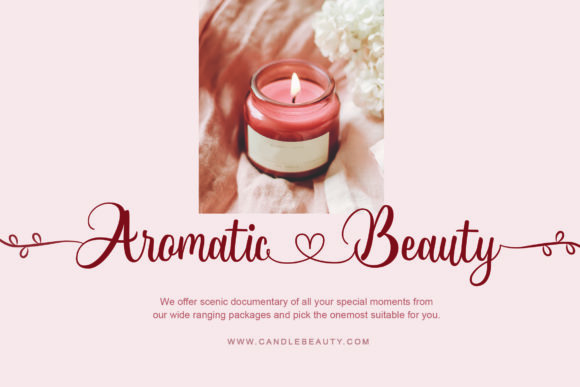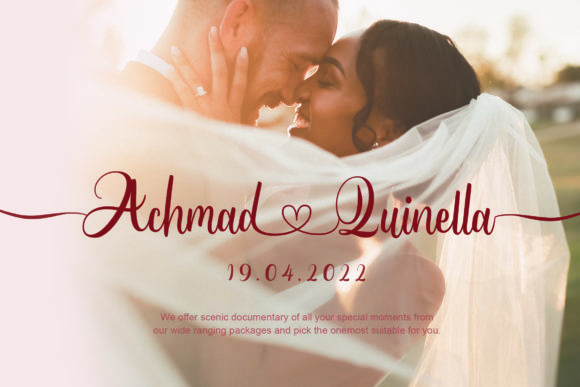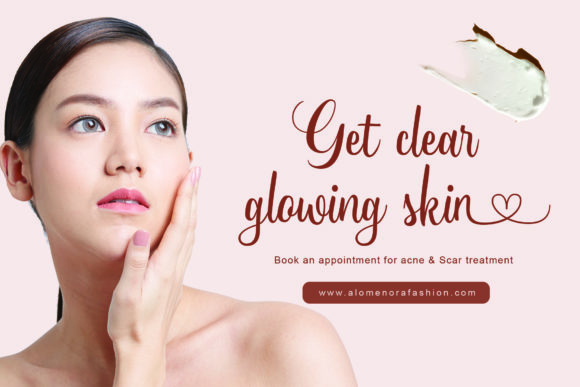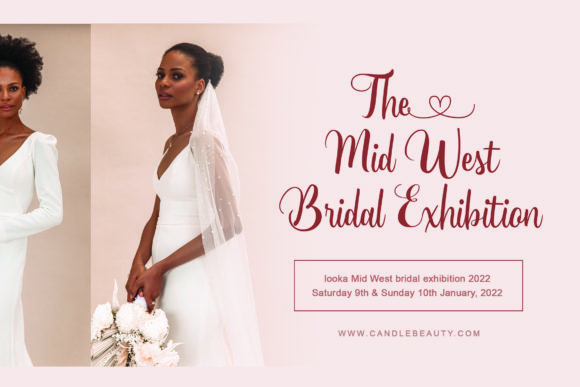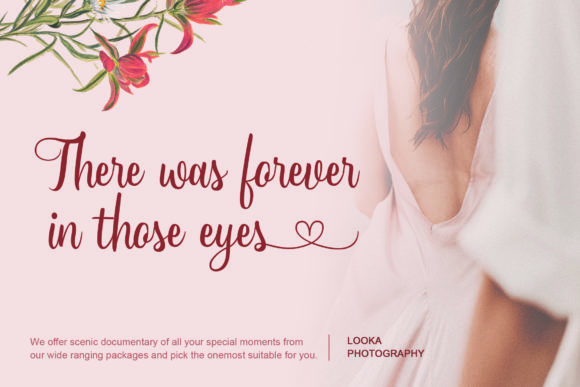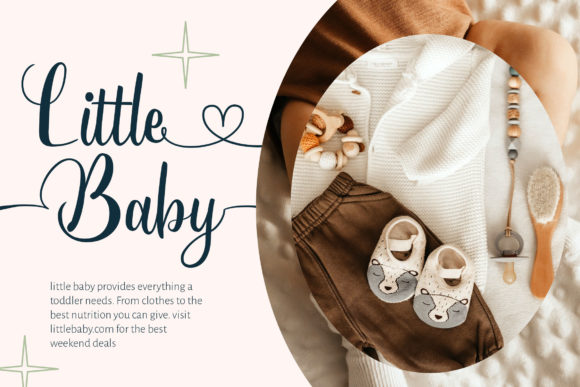
Discover the Charming Elegance of Butter Crush Font
Are you a designer or crafter looking for a font that exudes charm and elegance? Look no further than the Butter Crush Font. This beautiful font is perfect for adding a customized touch to various designs, and its PUA encoding makes it easy to access all the glyphs and swashes you need.
The Charm of Butter Crush Font
Butter Crush Font is a stunning typeface that feels equally charming and elegant. Its unique design makes it perfect for a wide range of projects, from wedding invitations and party decorations to branding and packaging. Whether you’re creating a romantic getaway or a whimsical craft project, this font is sure to impress.
One of the best things about Butter Crush Font is its PUA (Private Use Area) encoding. This means that you can access all the glyphs and swashes with ease, giving you complete creative control over your design. With PUA encoding, you can easily insert special characters, ligatures, and other unique features that will take your design to the next level.
Perfect for Customized Designs
Butter Crush Font is designed to be versatile and adaptable, making it perfect for a wide range of customized designs. Whether you’re creating a logo, a poster, or a social media graphic, this font is sure to add a touch of elegance and sophistication. Its charm and whimsy make it perfect for designs that need a personal touch.
What Makes Butter Crush Font Special?
- Charming and Elegant Design: Butter Crush Font has a unique and captivating design that will add a touch of whimsy to any project.
- PUA Encoding: Easily access all glyphs and swashes with PUA encoding, giving you complete creative control.
- Versatile and Adaptable: Perfect for a wide range of designs, from wedding invitations to branding and packaging.
- Easy to Use: Simple and intuitive to use, even for designers and crafters with limited font experience.
Tips and Tricks for Working with Butter Crush Font
- Experiment with Different Sizes and Colors: Find the perfect combination to make your design pop.
- Mix and Match Glyphs and Swashes: Create unique and interesting combinations to add visual interest.
- Use it with Other Fonts: Pair Butter Crush Font with other fonts to create a unique and eye-catching design.
Butter Crush Font is a charming and elegant typeface that’s perfect for designers and crafters looking to add a customized touch to their designs. With its PUA encoding and versatile design, it’s easy to use and adaptable to a wide range of projects. Whether you’re creating a romantic getaway or a whimsical craft project, Butter Crush Font is sure to impress.
Get Ready to Fall in Love with Butter Crush Font